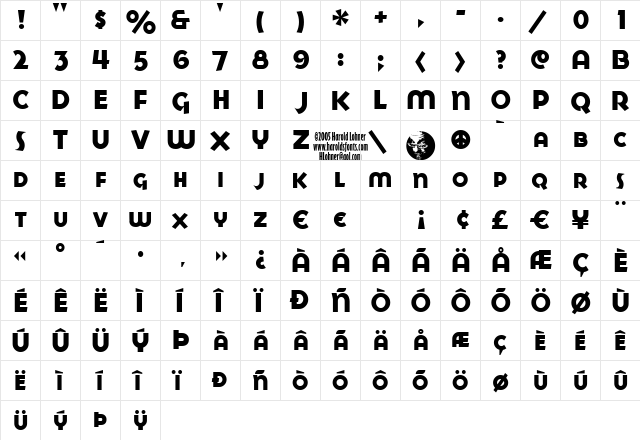
GoyaHeavy Regular
Design Context for GoyaHeavy Typeface
GoyaHeavy takes a measured approach to typography — its balanced proportions and neutral character make it a reliable workhorse for both digital and print work.